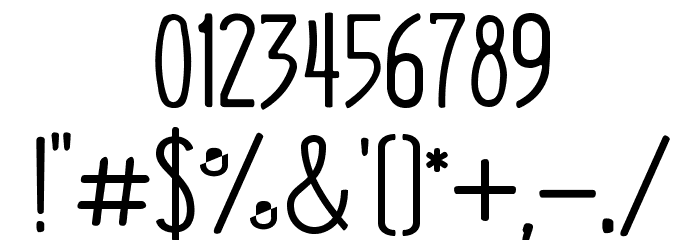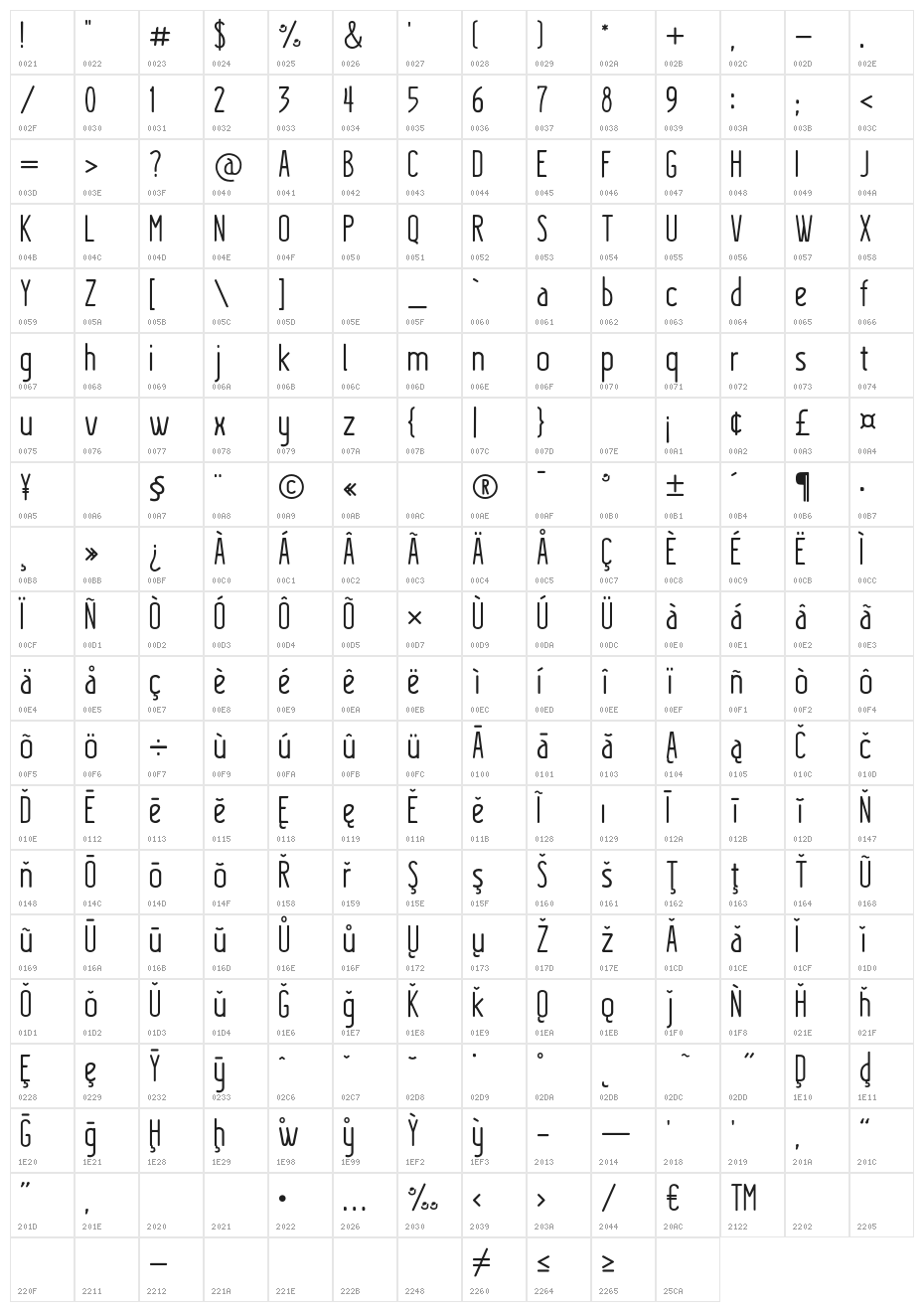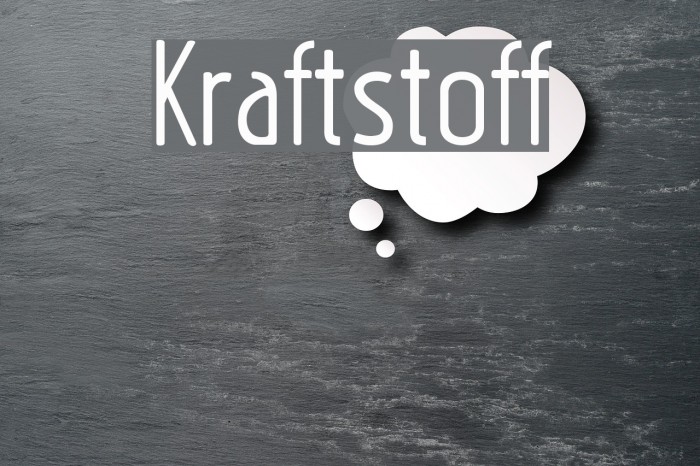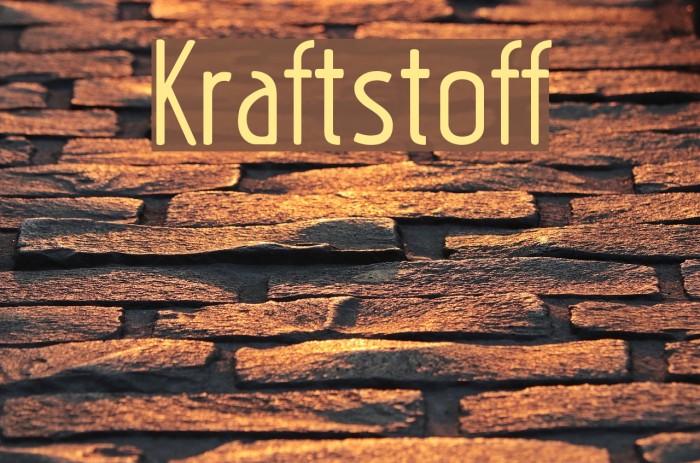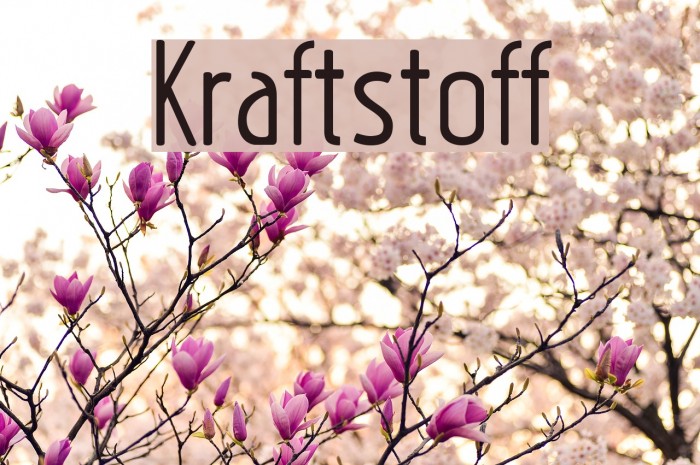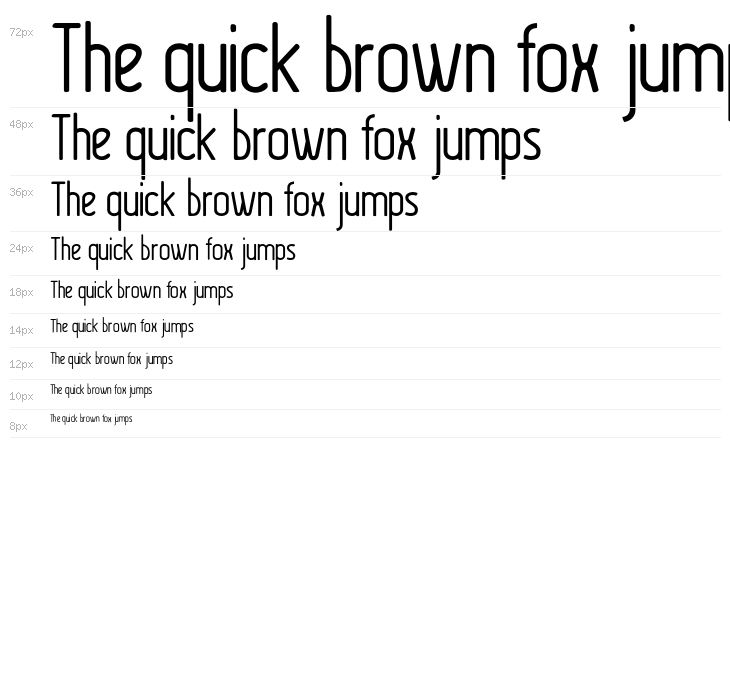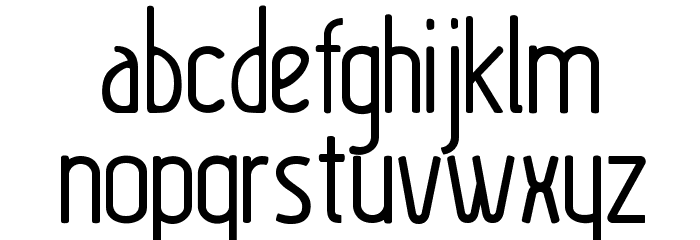
Kraftstoff Font
Kraftstoff Description
This font features a clean, modern design with a slightly rounded appearance. The characters are tall and narrow, giving it a sleek and elegant look. The uniform stroke width throughout the alphabet provides a sense of consistency and balance. The uppercase letters are distinct and bold, while the lowercase letters maintain a similar style with a touch of softness. The numbers are clear and easy to read, matching the overall aesthetic. Special characters are well-integrated, ensuring versatility in various design contexts.
Use CaseHeadlines, Logos, Branding
Proposed ProjectsIdeal for branding, advertising, and editorial design projects that require a contemporary and professional look.